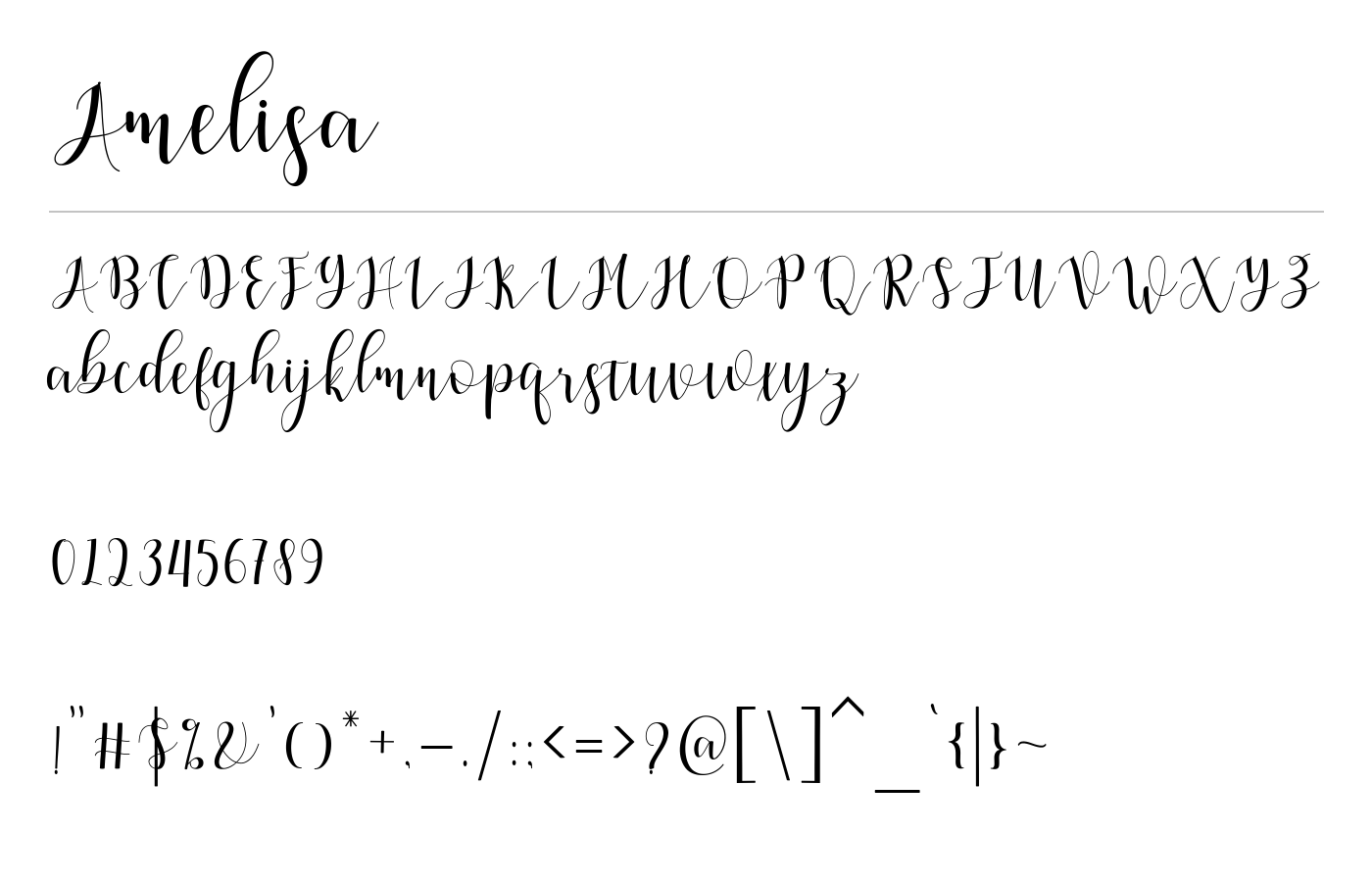
Amelisa is an elegant script font with a delicate, flowing style that combines thin and slightly varied stroke weights for a graceful, handcrafted look. Its high-contrast, calligraphic letterforms feature smooth, curved lines and distinctive swashes, making it ideal for wedding invitations, branding, and feminine or romantic designs. This font works beautifully in headlines and decorative text, where its refined charm can be fully appreciated.
Amelisa Font
About Amelisa Font